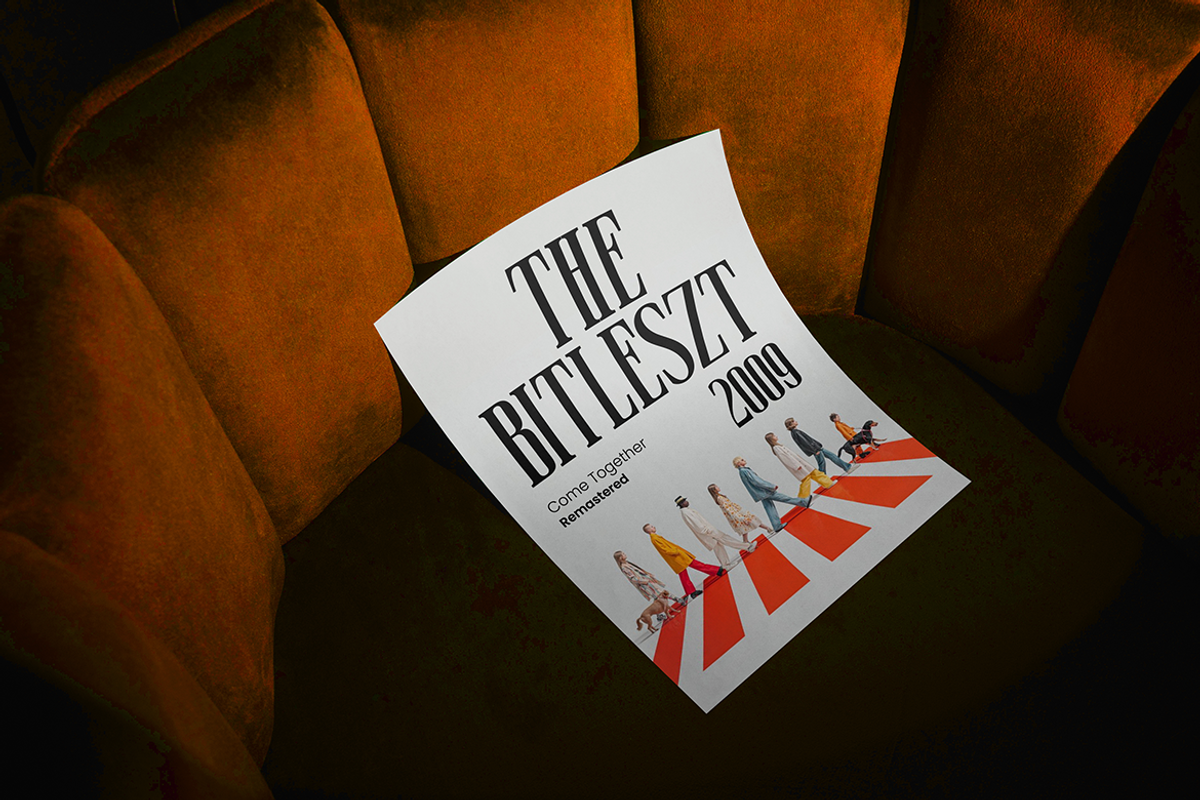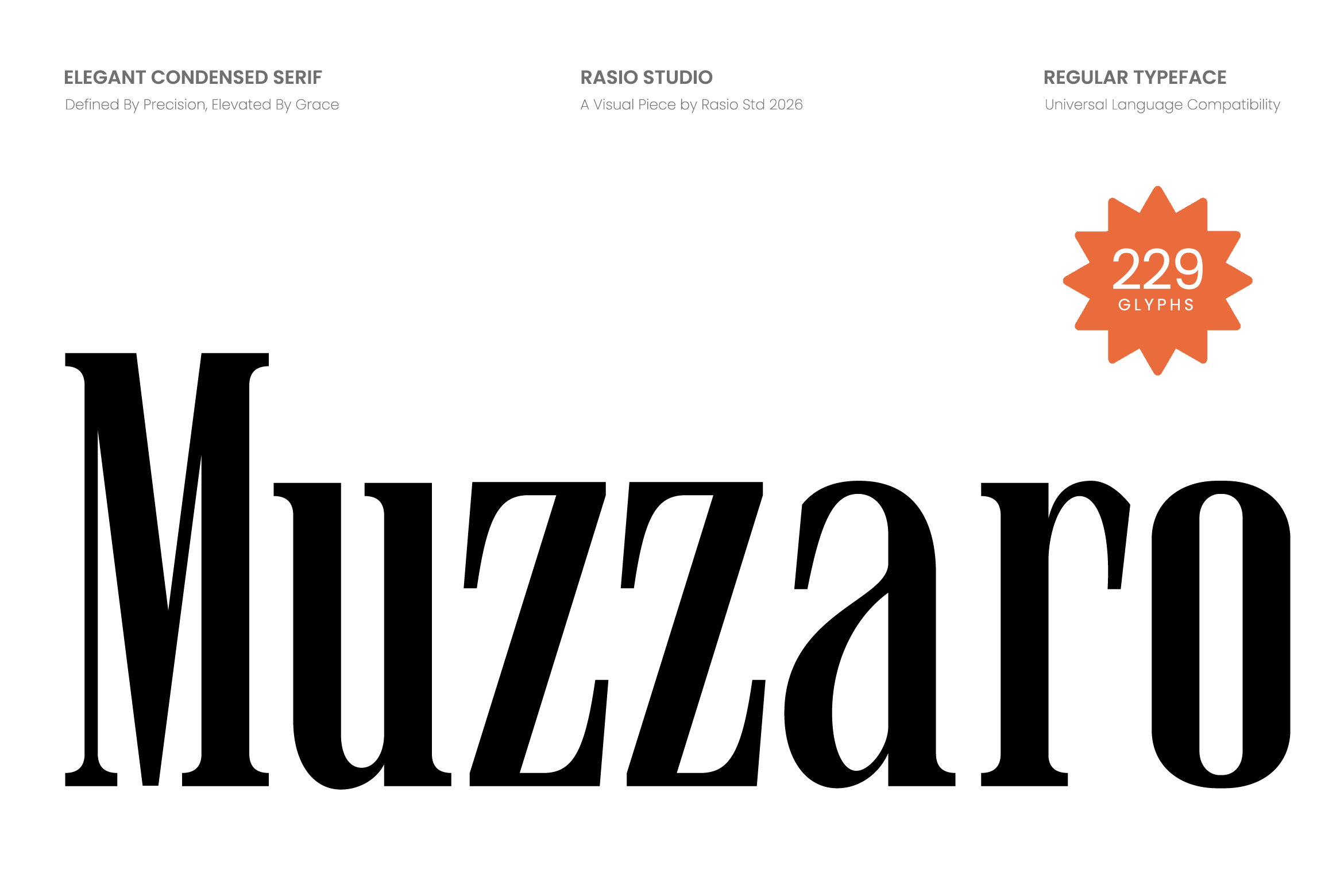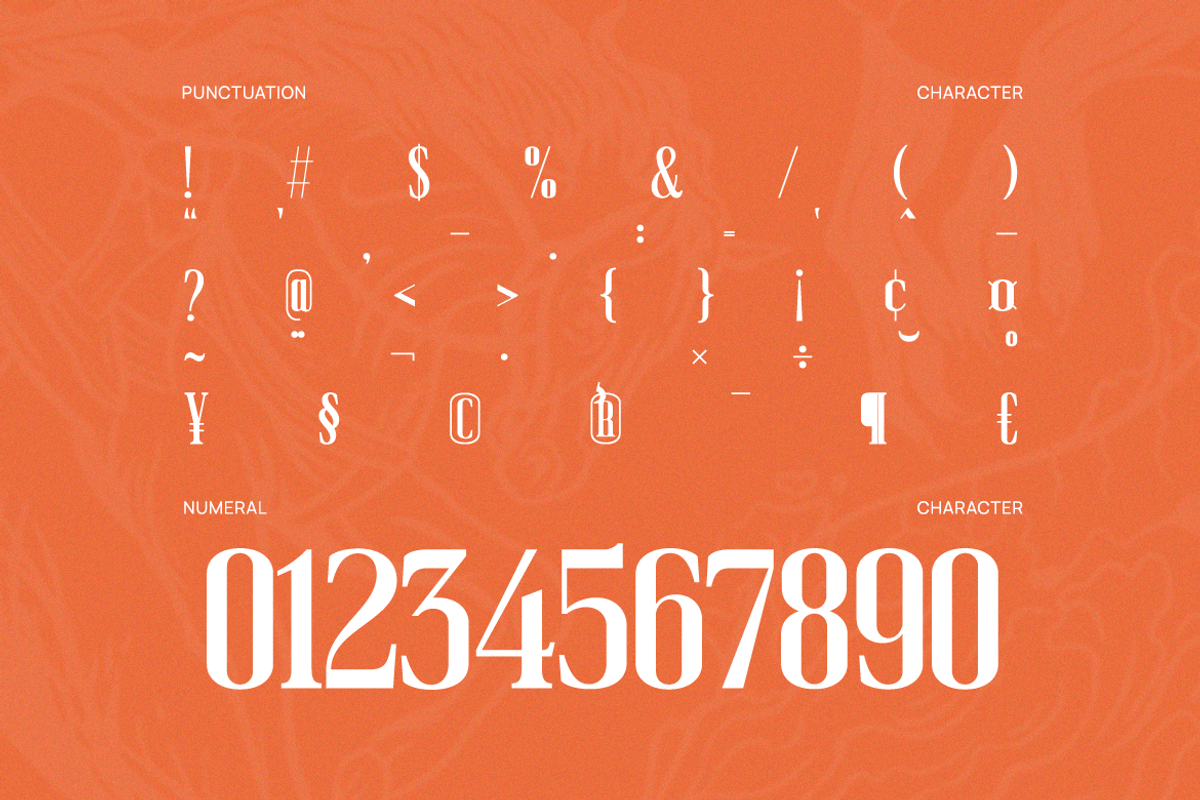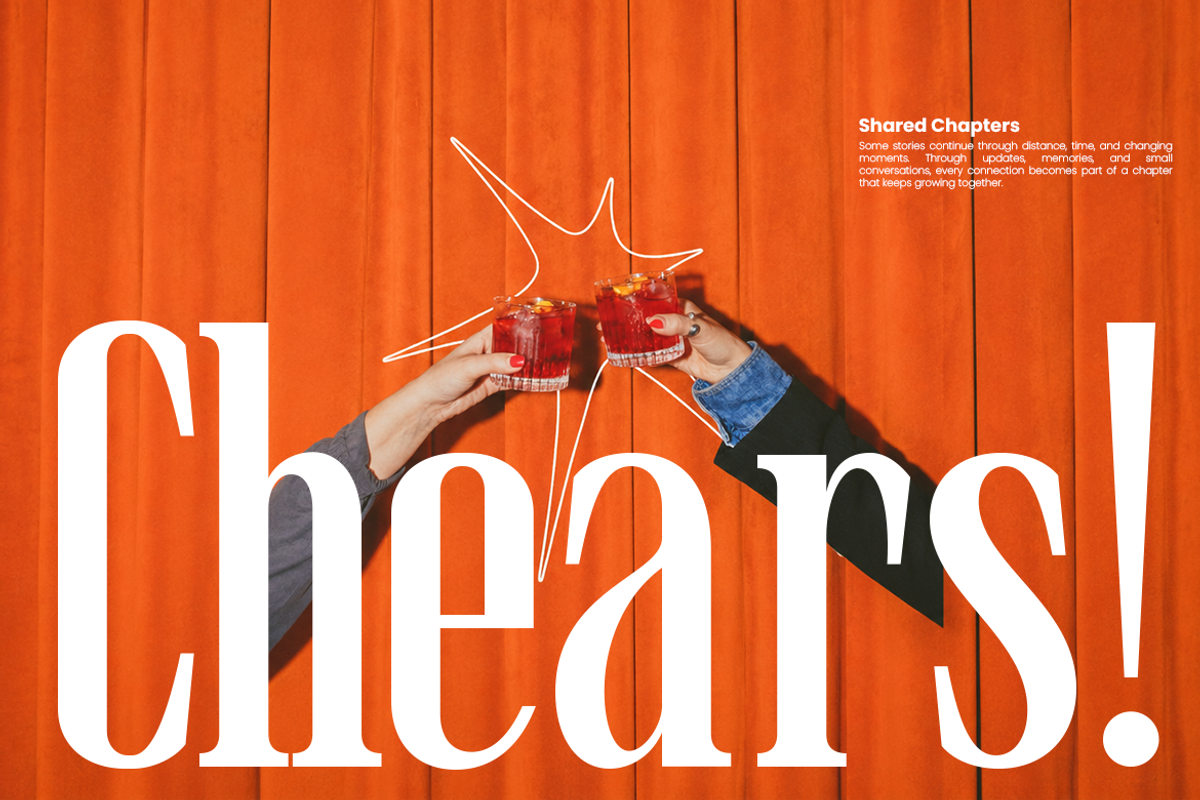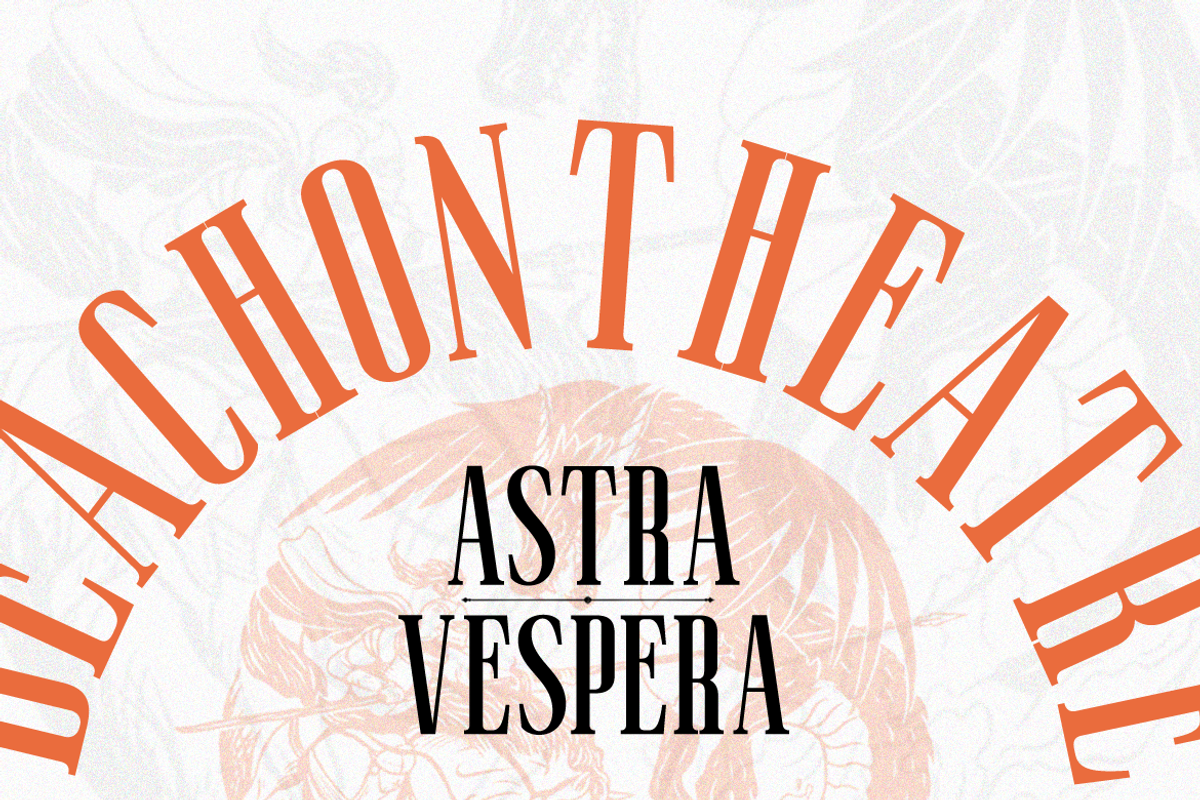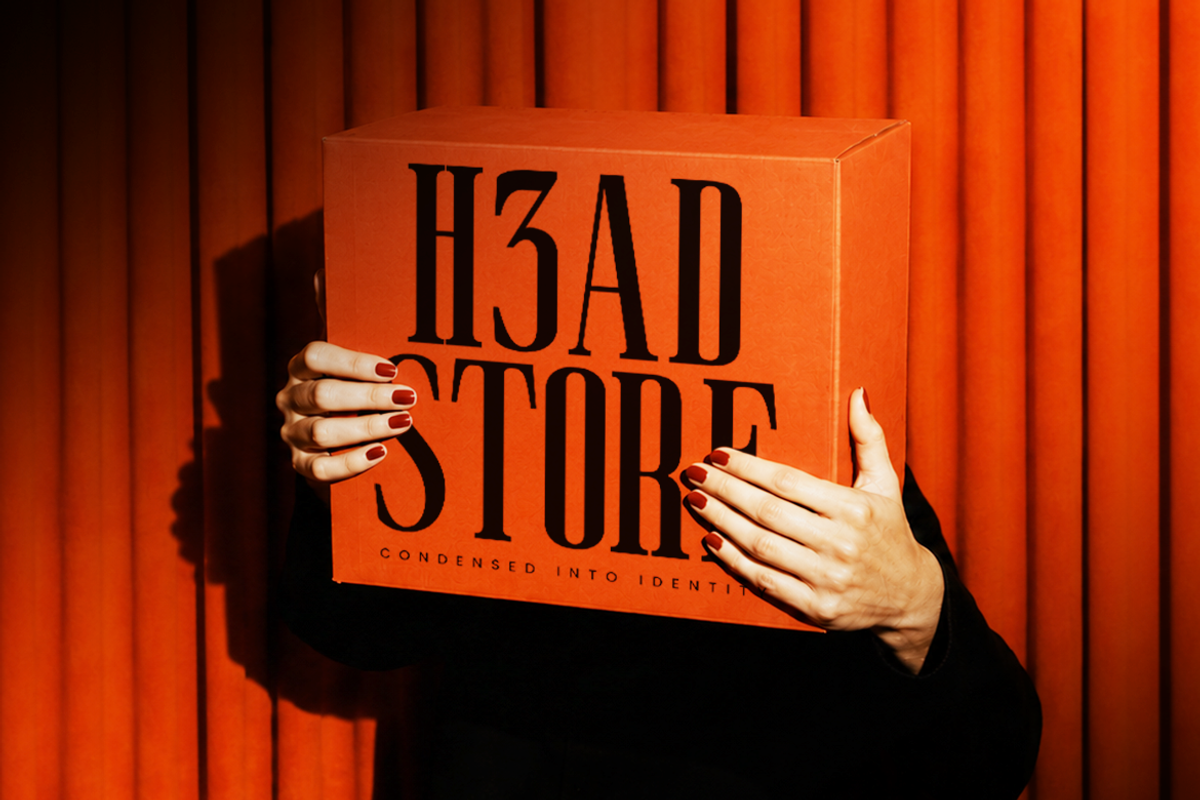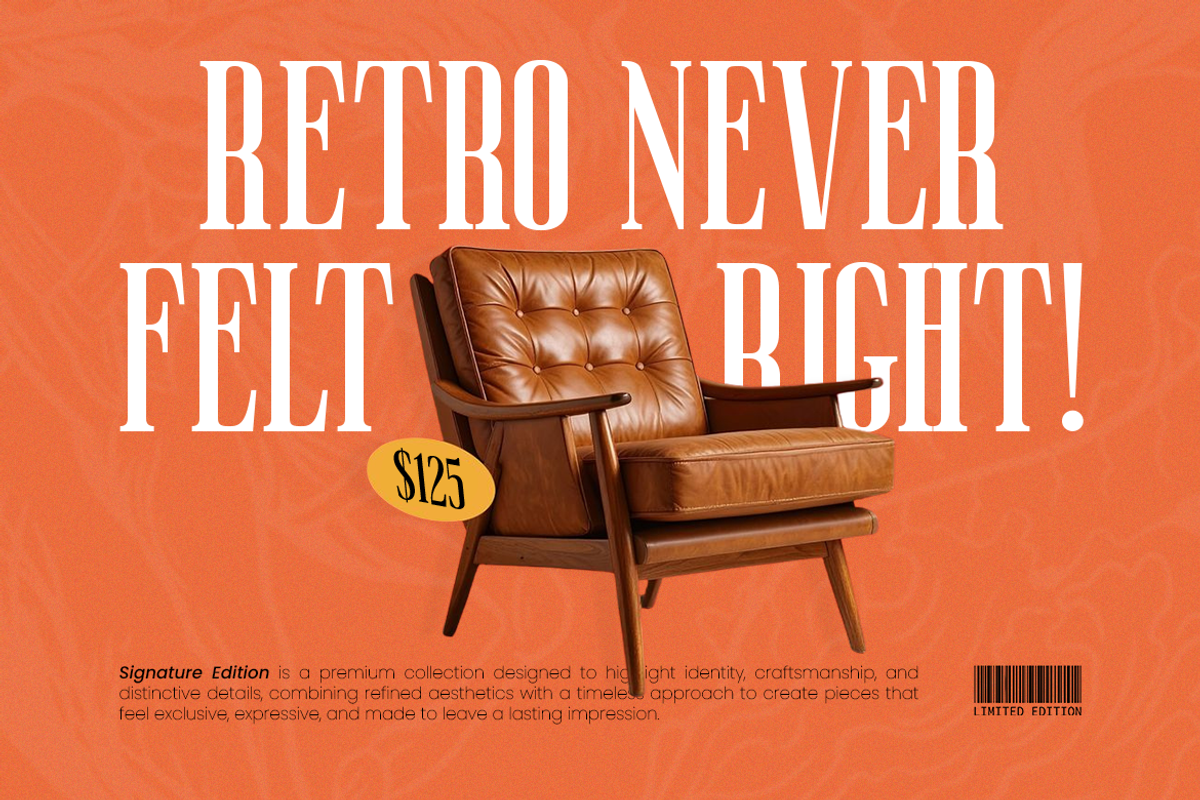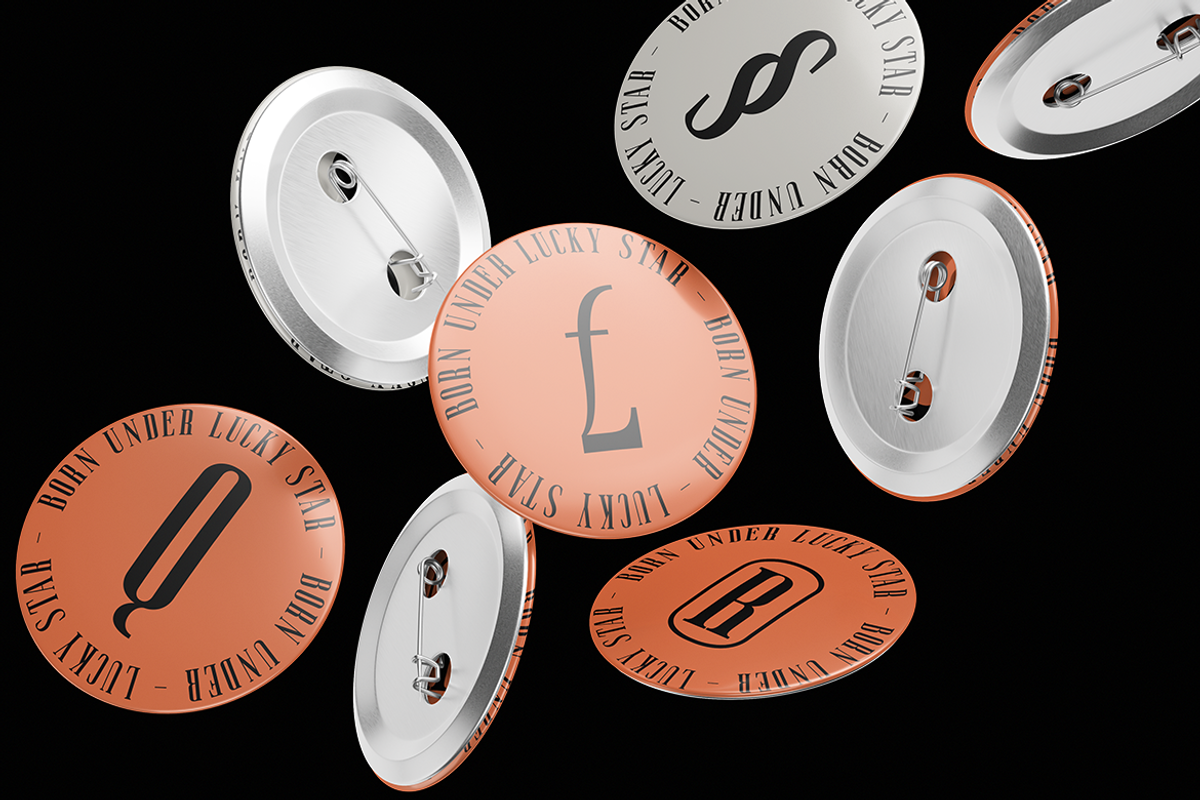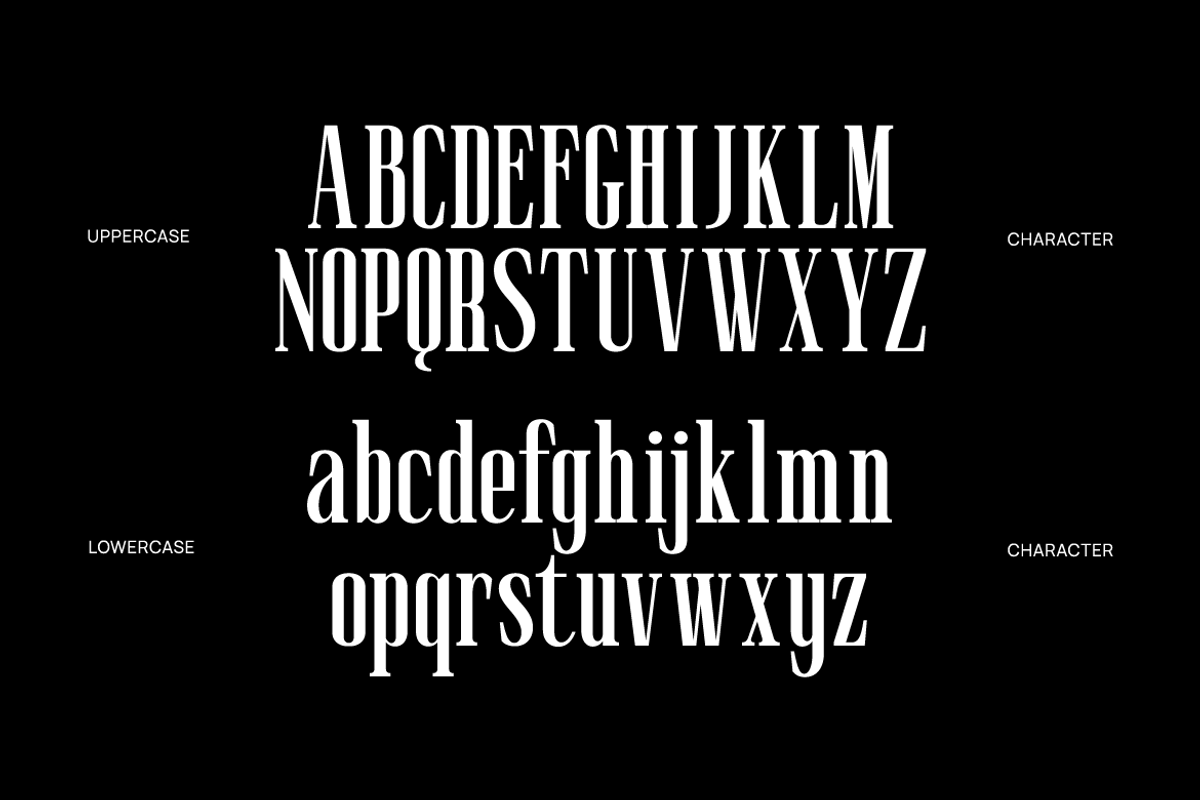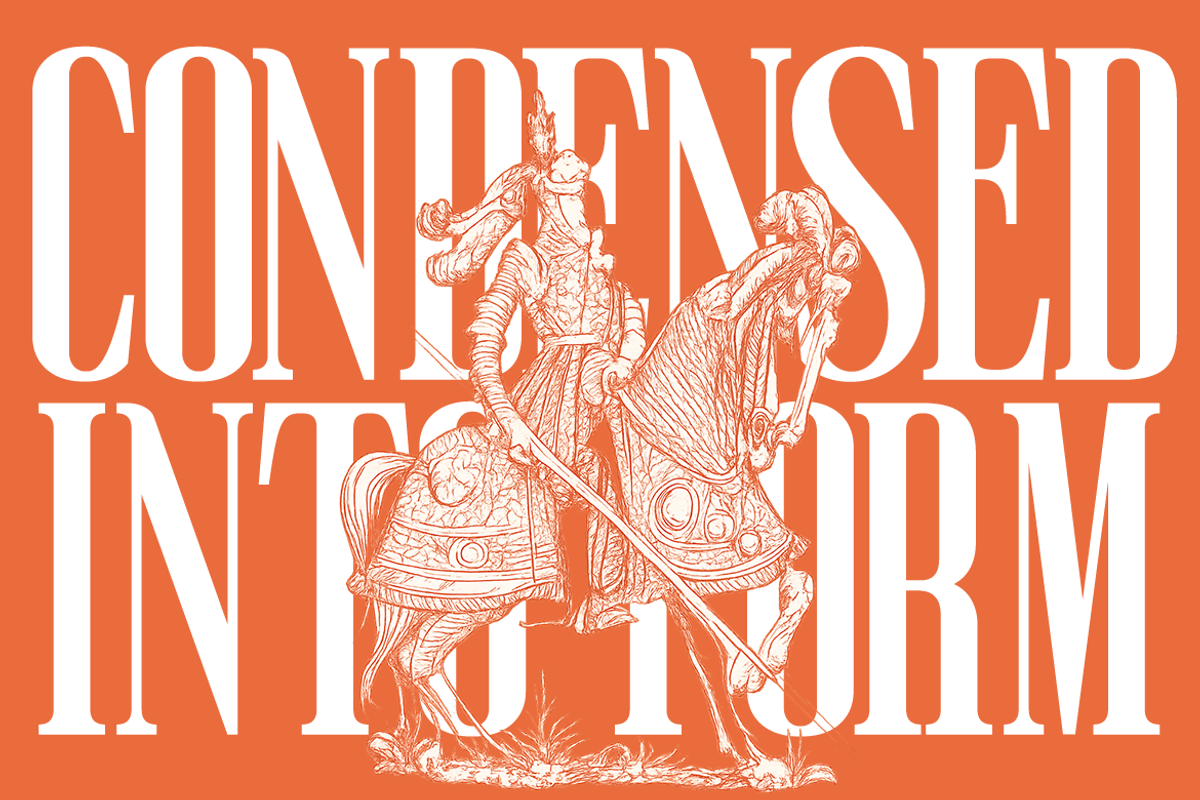
Muzzaro Elegant Condensed Serif Font
Muzzaro is an elegant condensed serif typeface featuring high-contrast strokes, refined curves, and tall proportional characters that create a luxurious editorial appearance. The font includes uppercase, lowercase, numerals, punctuation. Its slim structure and sharp serif details deliver a sophisticated visual rhythm suitable for premium branding, fashion layouts, magazine headlines, and stylish packaging designs. Designed with a balance of classic elegance and modern precision, Muzzaro performs beautifully in both large display settings and refined visual compositions.
Relevance & Use Case is highly relevant for luxury branding, editorial publishing, fashion campaigns, beauty packaging, premium invitations, and elegant social media visuals. Its condensed proportions and refined serif construction make it especially effective for magazine headlines, boutique logos, cosmetic branding, jewelry promotions, and modern lifestyle presentations that require a polished and sophisticated appearance.
Tall condensed serif structure with refined editorial proportions
High contrast strokes creating an elegant luxury appearance
Sharp serif details with graceful vertical emphasis
Sophisticated character curves for premium visual impact
Balanced spacing designed for striking headlines and editorial layouts
Luxury fashion branding and elegant editorial identities
Magazine covers and high-end publication layouts
Beauty packaging and premium cosmetic labels
Wedding invitations and sophisticated event stationery
Social media branding and modern luxury marketing designs
Screen-optimized kerning for responsive web design
Supports numerals, punctuation, and extensive symbol set